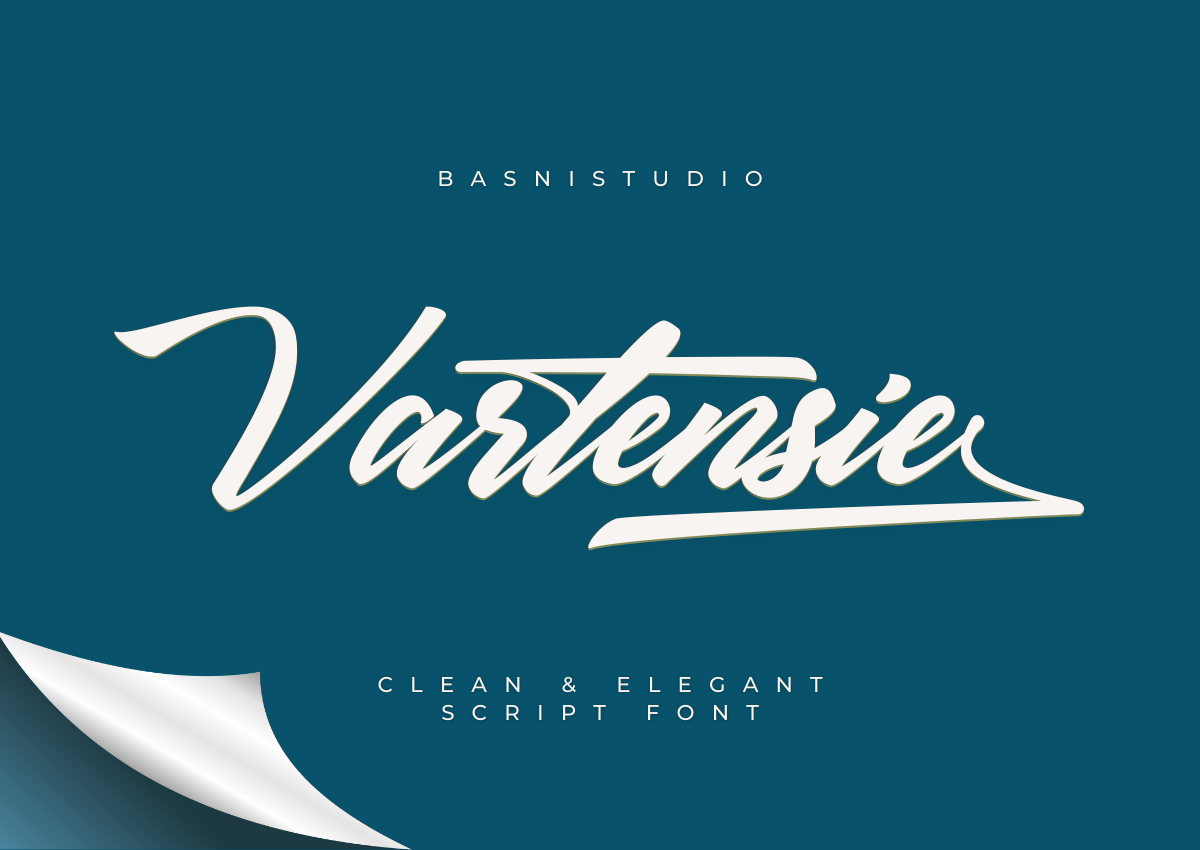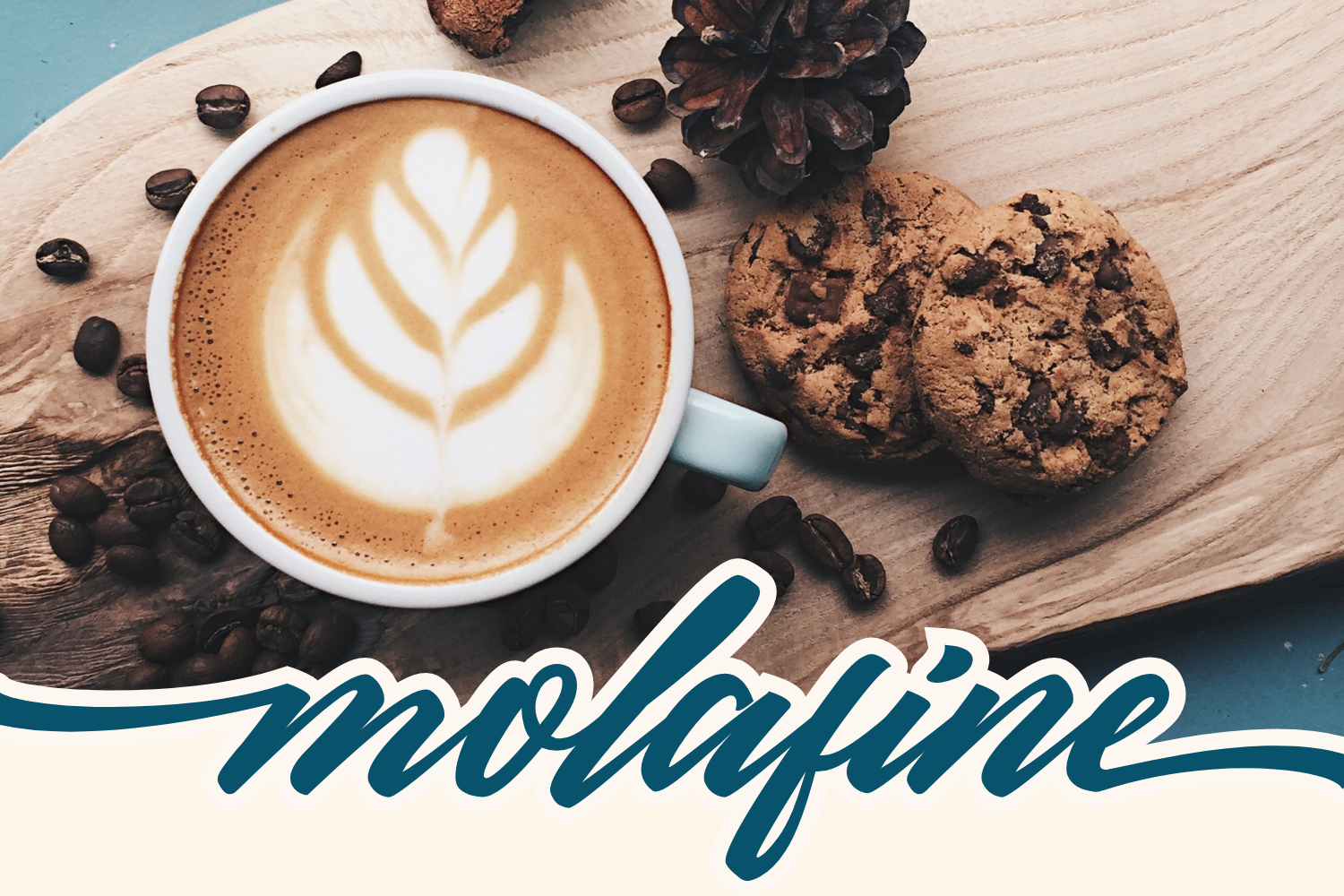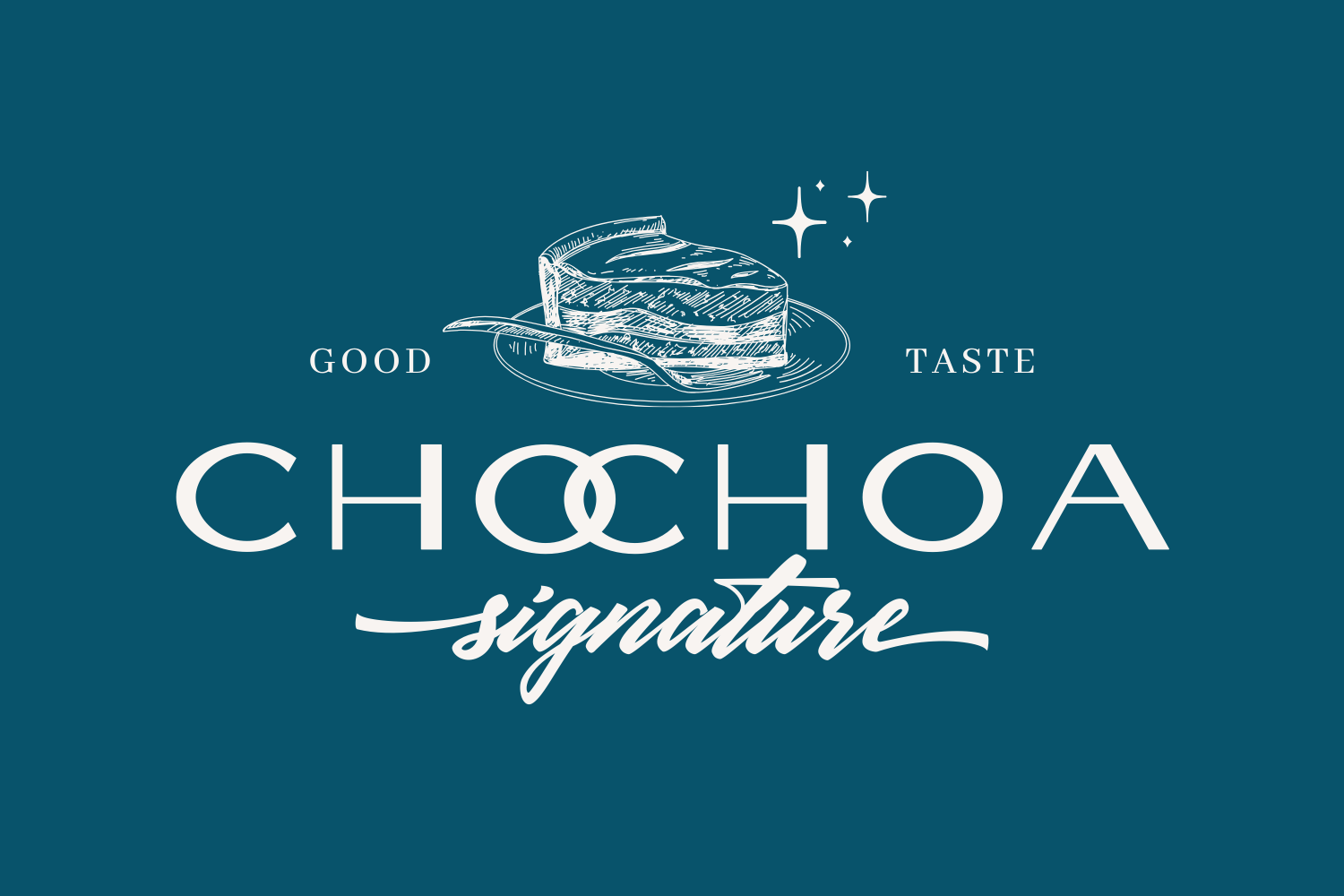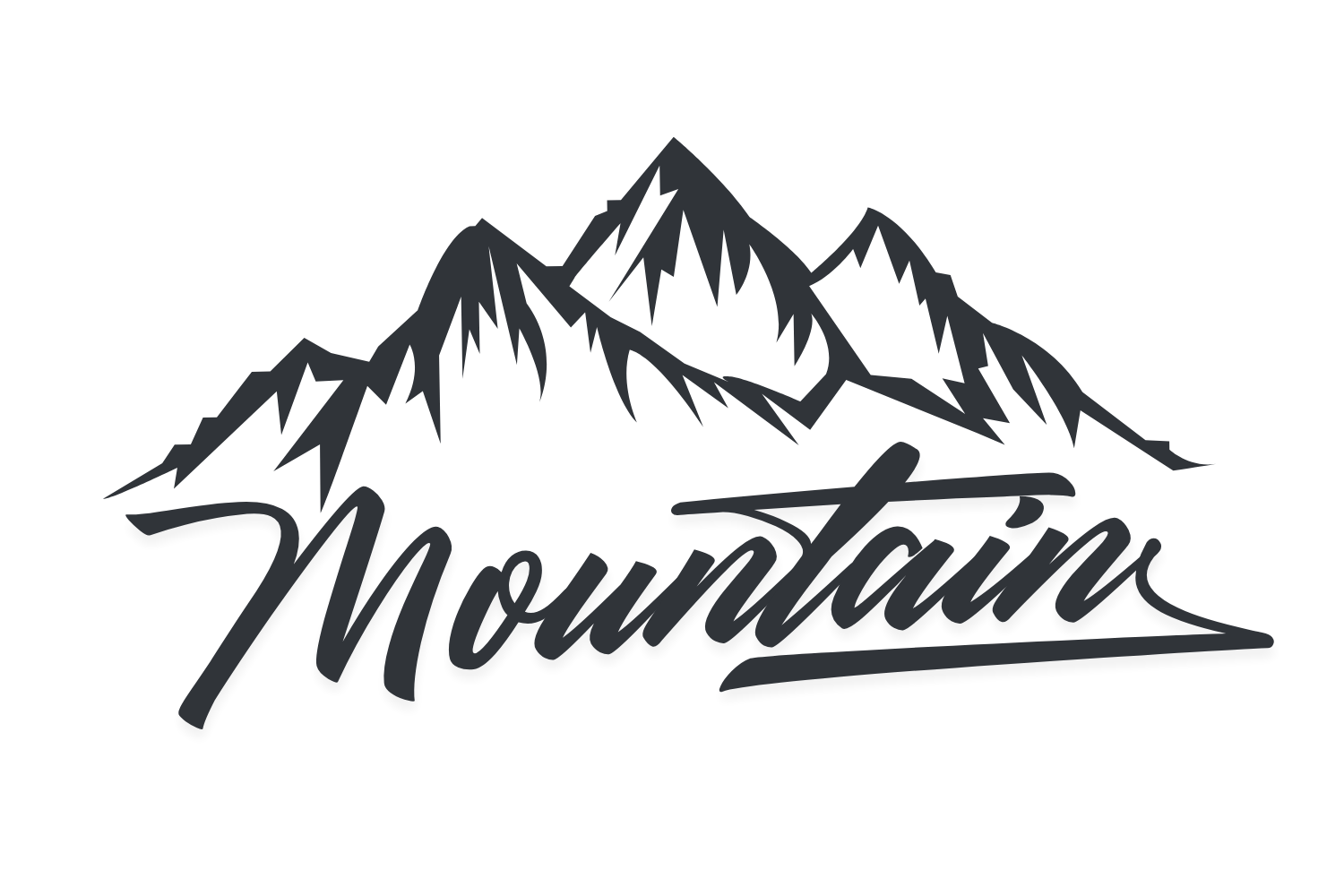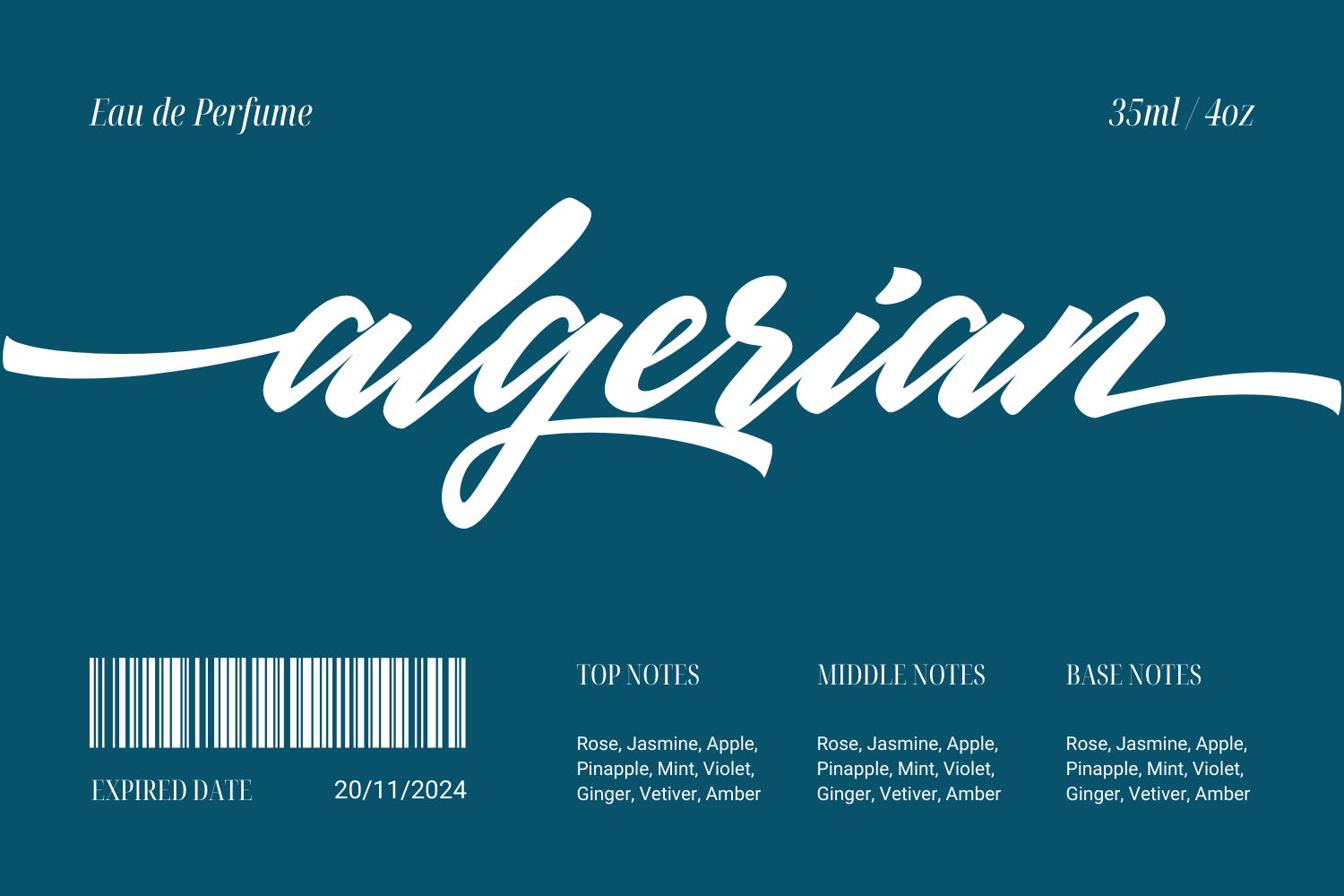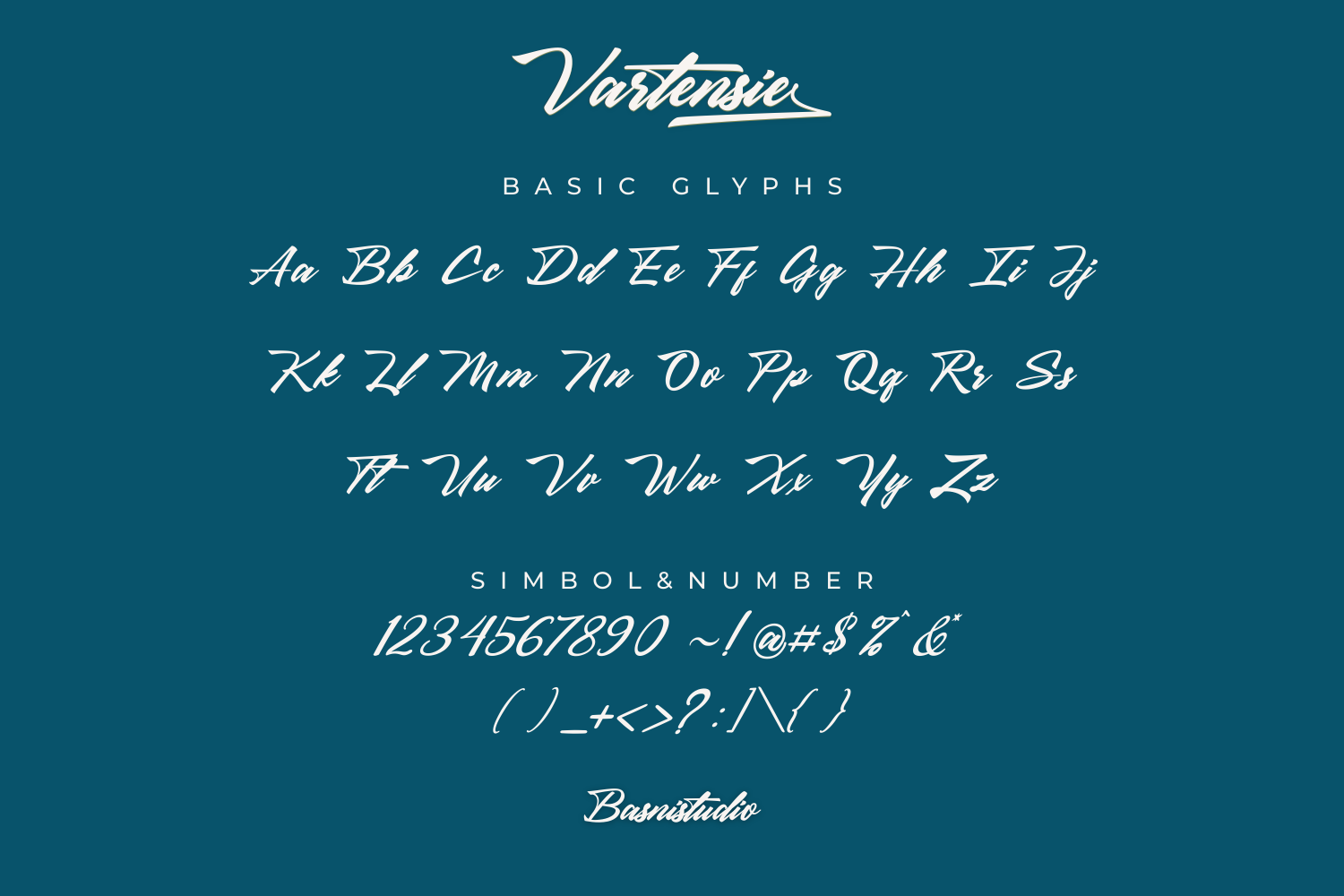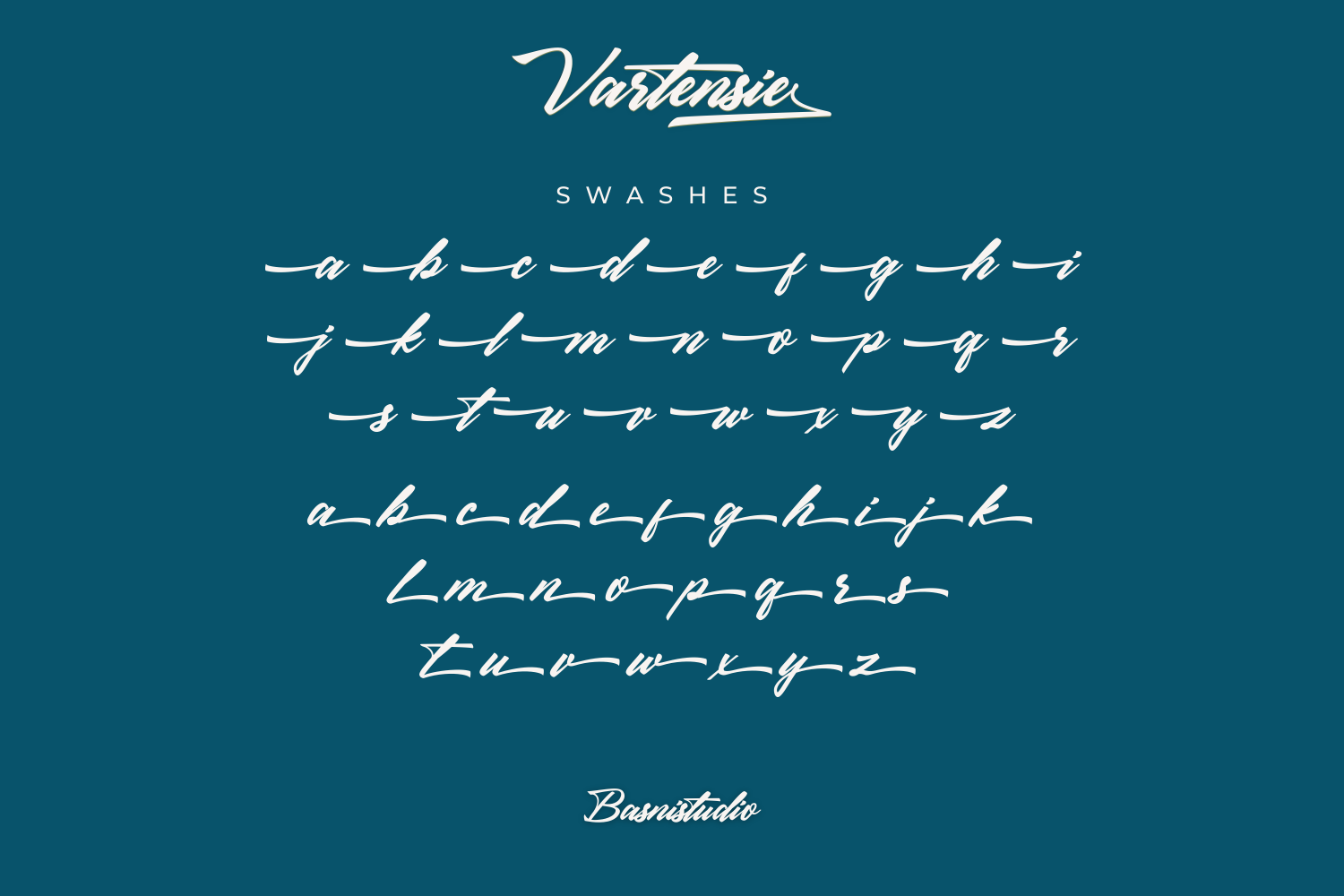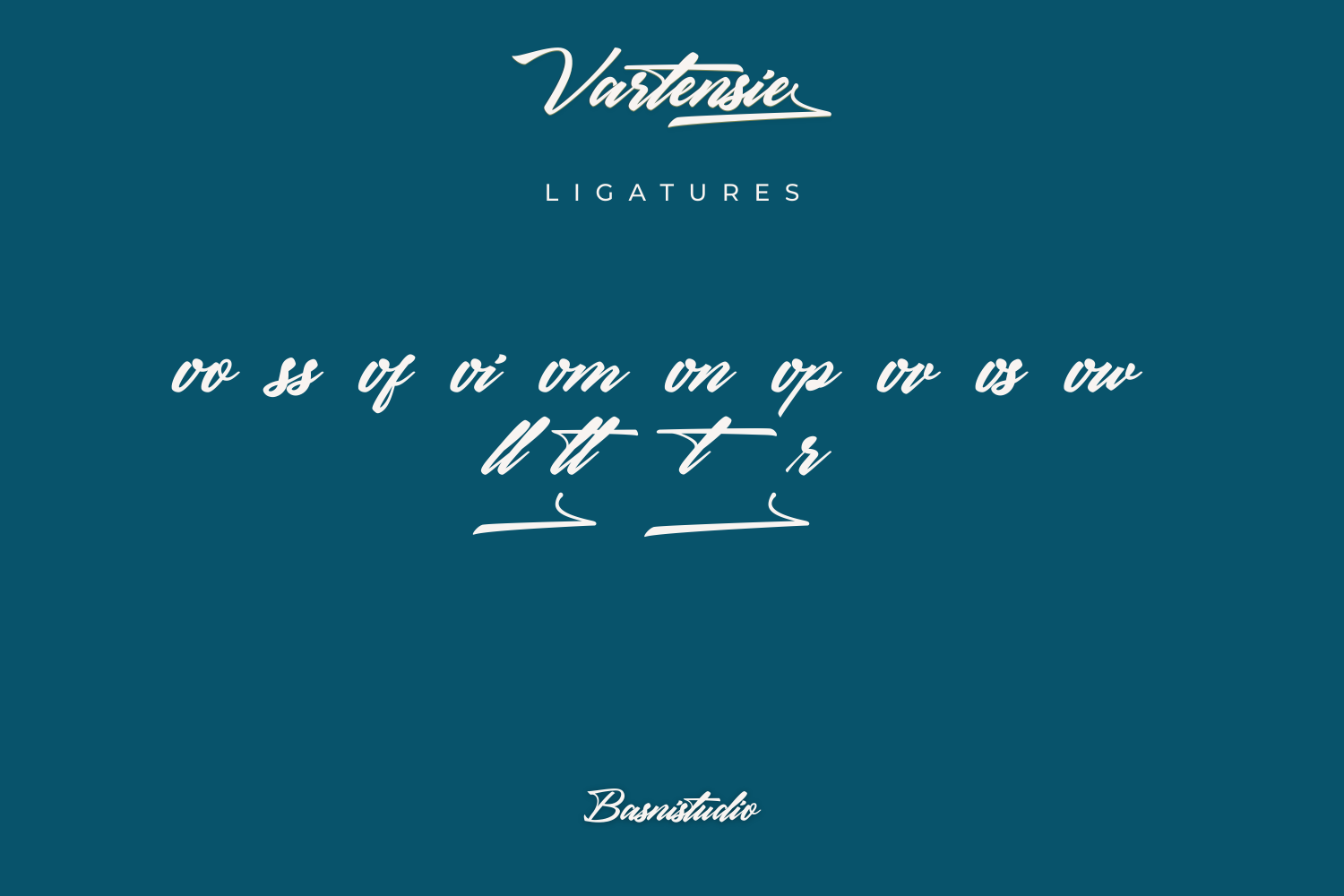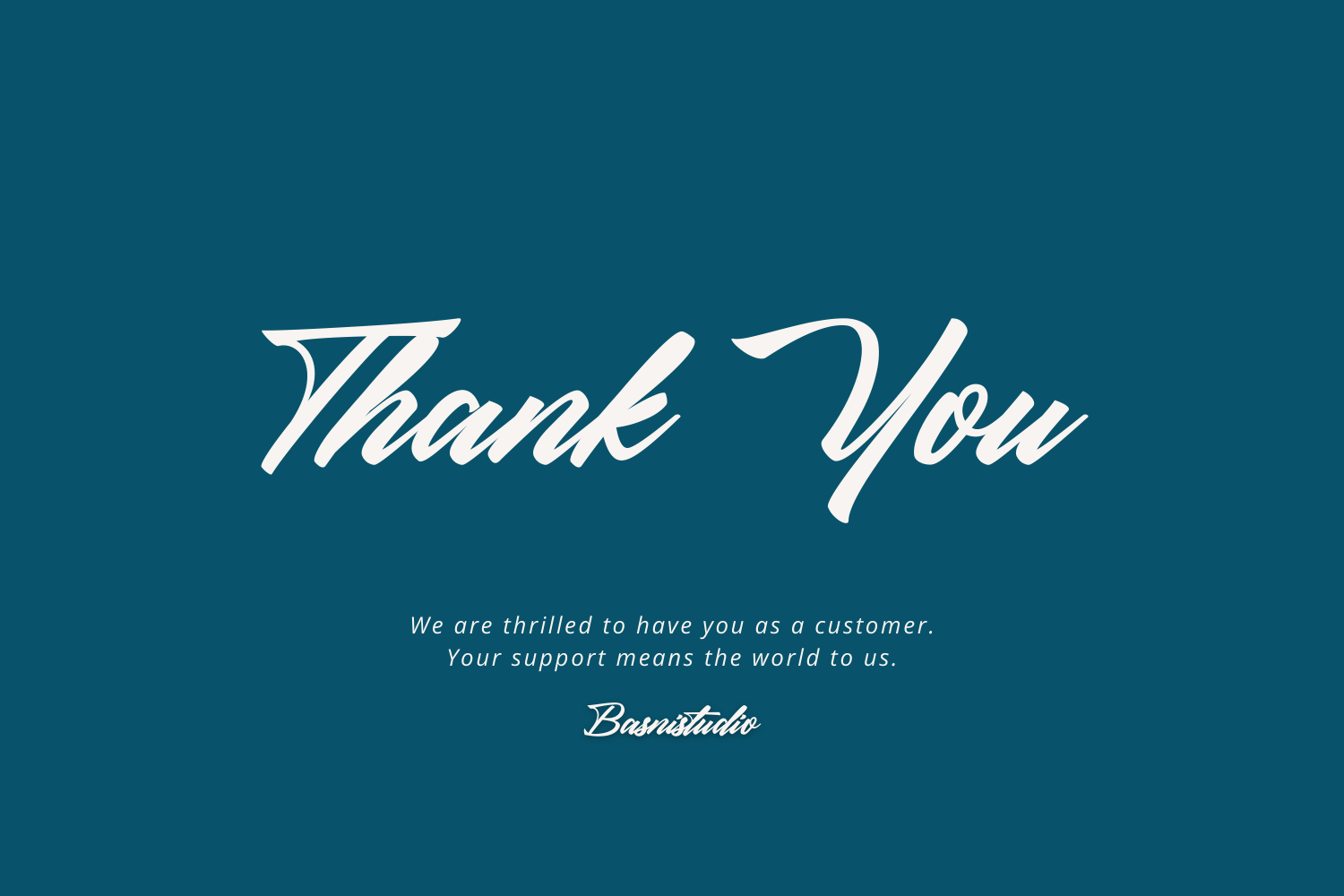
Perfect Lettering Touch for Your Designs
Introducing Vartensie Script Font, a Clean & Elegant Script Font
Crafted with authentic Brush for Clean & Elegant touch for everything from branding and social media to invitations and packaging.
Clean & Elegant – Perfect for tagline, quotes, greeting cards, and more
Authentic Brush Feel – Created with authentic Brush for Clean & Elegant
Whether you’re building a powerful brand identity or crafting a standout design,
Vartensie Script Font Created with authentic Brush for Clean & Elegant look gives you the creative edge you need.
What’s Included:
Uppercase & lowercase letters
Ligature & Alternates
Swashes Numbers & punctuation
Multilingual Support ( Support for 90 languages )